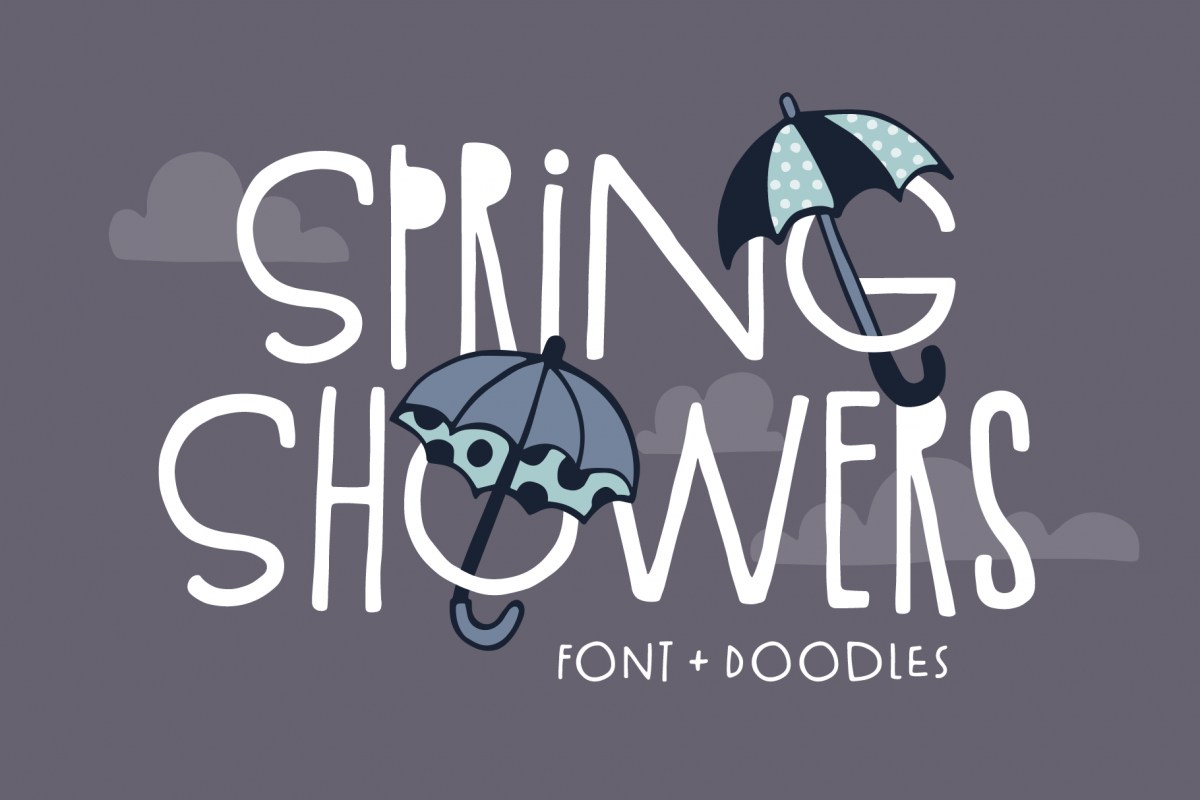
Spring Showers Font and Doodles
Introducing: Spring Showers! A thin, hand-drawn font with a mix of wide and condensed characters. Also comes with over 50 rainy day doodles.